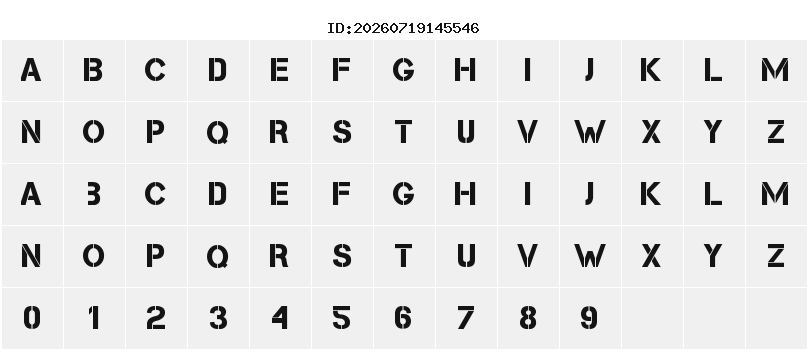
• Font Name: Cleanwork
• Full Font Name: Cleanwork
About Cleanwork.ttf
Cleanwork.ttf is a modern, elegant sans-serif font designed for ultimate readability and visual harmony. Perfect for branding, headlines, web design, and print materials.